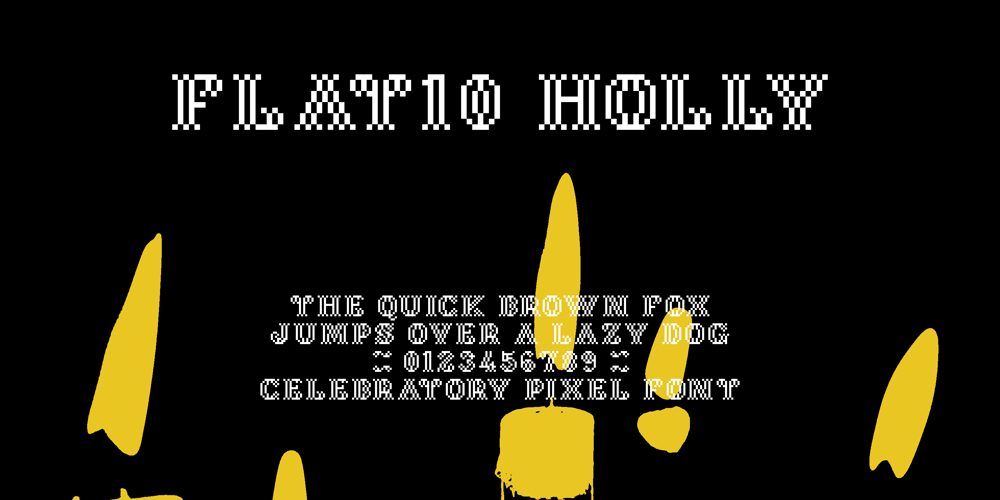
Flat10 Holly
Flat10 Holly font
Flat10 Holly Font Family was designed by Ryoichi Tsunekawa and published by Dharma Type. Flat10 Holly contains 1 styles and family package options. Very decorative pixel font which has organic and soft impressions. The best pixel font for Christmas. This 8-bit pixel font is designed with respect for 80s game designers and the pixel font pioneers in middle 90s. Use at size 10 pixels or multiples of 10 and anti-alias off is recommended. List of our Pixel Font Project. ·Flat10 Antique ·Flat10 Artdeco ·Flat10 Arts&Crafts ·Flat10 fraktur ·Flat10 Holy ·Flat10 Holly ·Flat10 Segments ·Flat10 Stencil ·Flat20 Gothic ·Flat20 Headline ·Flat20 Hippies ·Flat20 Streamer ·Behrensmeyer Vigesimals ·Civilite Vigesimals